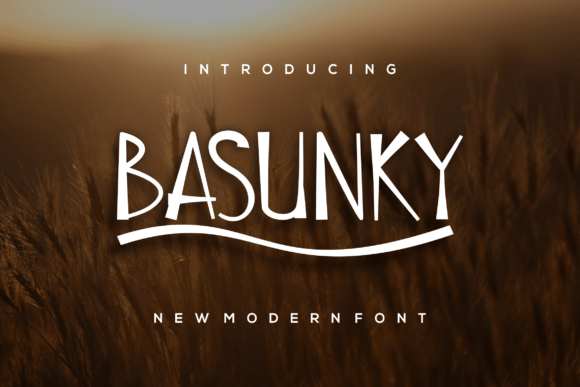
In a world teeming with monotony, unleash your individuality with Basunky, the display font that breathes life into your designs. It's a visual masterpiece, meticulously crafted with subtle handwriting nuances that evoke a sense of timeless elegance. The strokes dance across the page, exuding an air of sophistication that commands attention.
With Basunky, the possibilities are endless. Its versatility shines in headlines, logos, and any creative endeavor that craves a touch of distinction. Whether you're a seasoned designer or a budding enthusiast, this font is your gateway to captivating designs that leave a lasting impression.
Embrace the beauty of intricate details and make your words dance with grace. Basunky's distinctive character adds depth to your designs, transforming them into visual symphonies. It's the perfect font for those who dare to stand out, to break free from the mundane and embrace the extraordinary.
So, dive into the world of Basunky and let your creativity soar. Let your designs tell a captivating story, one that resonates with your audience and leaves them yearning for more. With Basunky, the ordinary becomes extraordinary, and your designs will forever be etched into the hearts of those who encounter them.